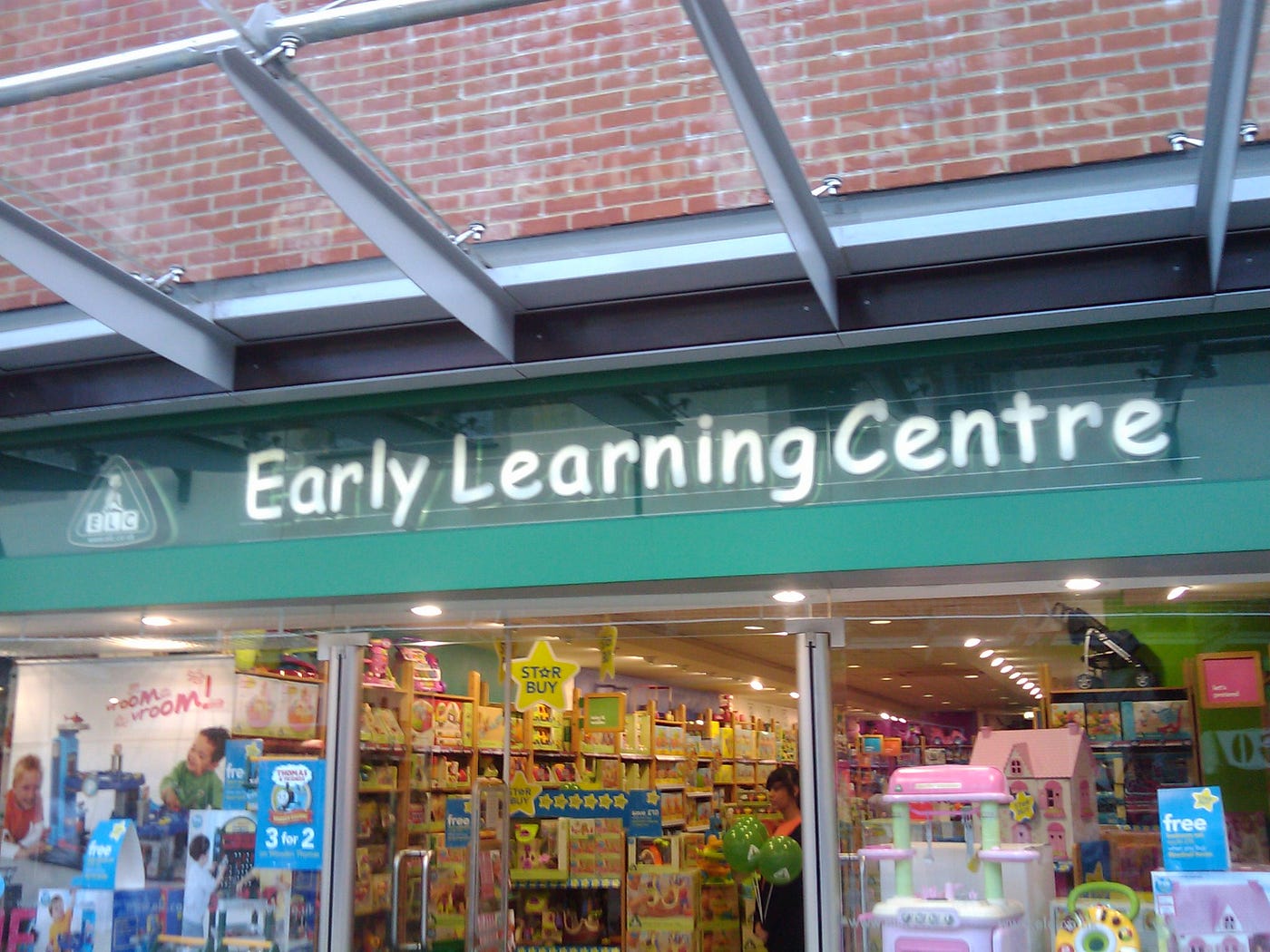
Tensions flared in the typography fandom when Saturday Night Live featured a sketch mocking the Papyrus typeface; in particular, its appearance in the title for James Cameron’s Avatar.
As a typography enthusiast, I must object to this round dismissal of Papyrus.ttf. Every typeface has its time and its place — even Papyrus. Even Wingdings. Yes, even Comic Sans. Sure, that time and place might be on the signage for a preschool in a suburban Wisconsin strip mall. But though coastal elites deny it, that is, indeed, a real place.
Hence, I’ve assembled a quick guide to much-loathed fonts accompanied by details as to what kinds of establishments may use them without being mocked. Break these rules at your own peril.
Amatic SC
Lobster
Fredericka the Great
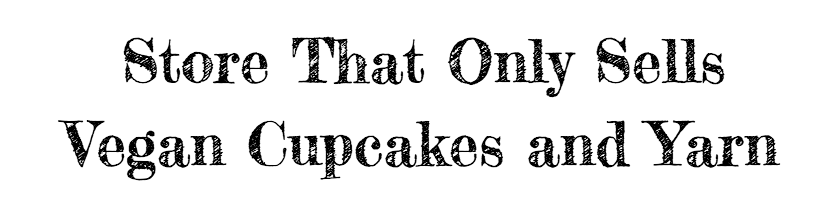
Hobo
Pacifico
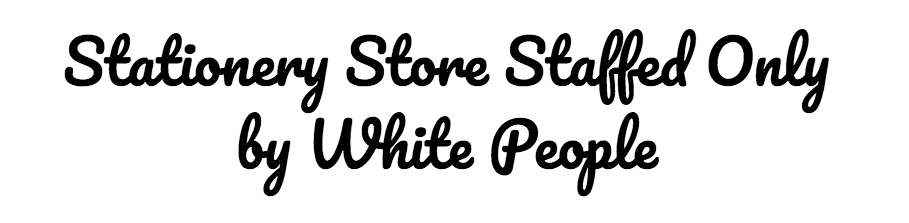
Rosewood Std Regular
Orbitron
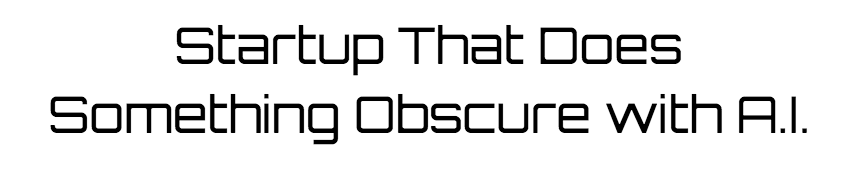
Blurfont
Helvetica Neue
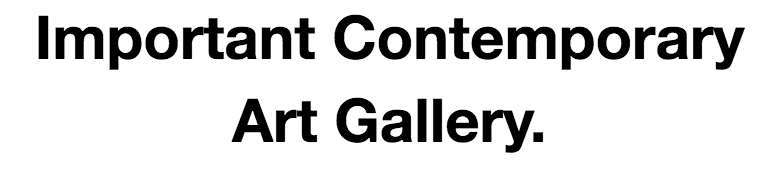
Quantico
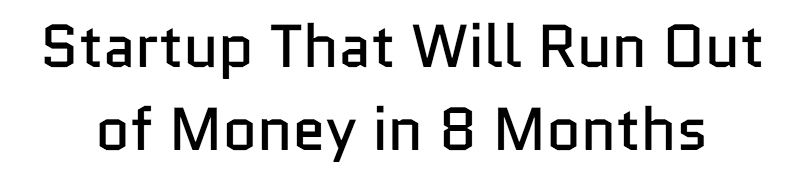
Allstar Regular
Satisfy
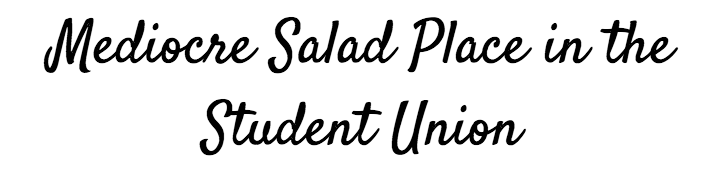
American Typewriter
Times New Roman
Comic Sans